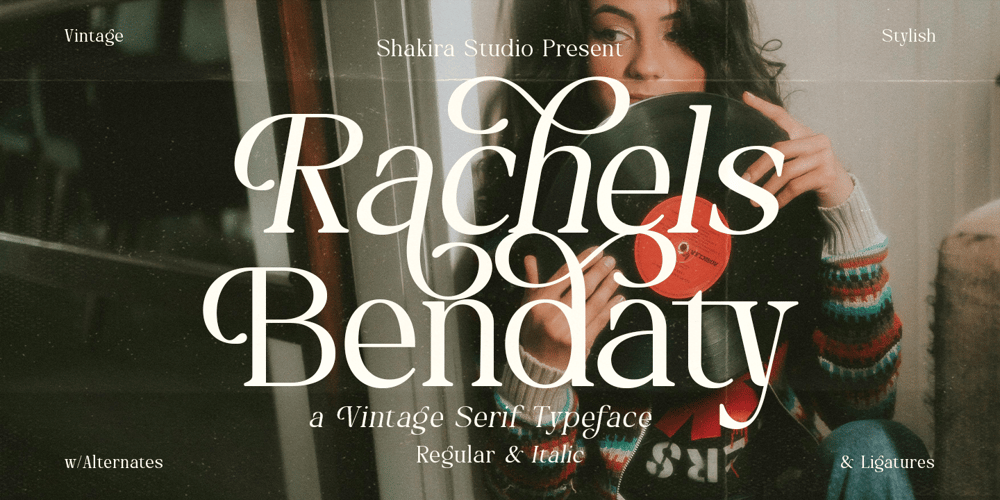
Rachels Bendaty Font Family was designed by Idhham Cholid Rikzano Yahya and published by Shakira Studio. Rachels Bendaty contains 2 styles and family package options. Rachels Bendaty is a retro display serif font available in regular and italic styles. It features a stylish and trendy design with elegant alternates and ligatures, perfect for branding, editorial projects, social media, invitations, and more. Elevate your designs with its timeless charm and modern sophistication.Here’s what you get: Regular & Italic All Multilingual symbol Opentype features ( ligature, alternate ) Accessible in the Adobe Illustrator, Adobe Photoshop, Adobe InDesign, even work on Microsoft Word. PUA Encoded Characters – Fully accessible without additional design software. Multilingual character supports : (Afrikaans, Albanian, Catalan, Croatian, Czech, Danish, Dutch, English, Estonian, Finnish, French, German, Hungarian, Icelandic, Italian, Lithuanian, Maltese, Norwegian, Polish, Portuguese, Slovenian, Spanish, Swedish, Turkish, Zulu)Follow my shop for upcoming updates, and for more of my work, If you need a custom license or have questions please visit our website: www.shakirastudio.comThank you!Shakira Studio